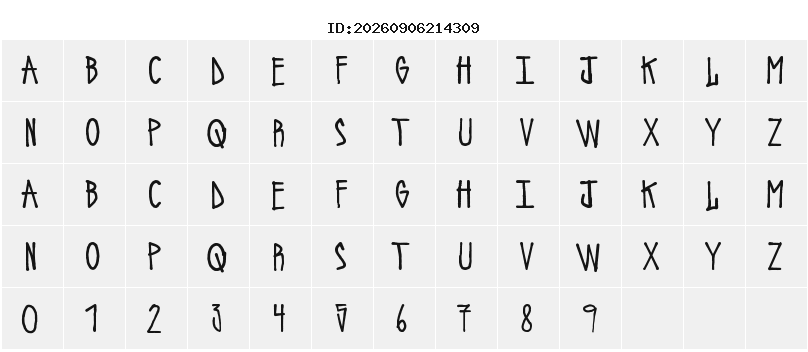
• Font Name: Urban Riot
• Full Font Name: Urban Riot
• Designer: José "Beraka" Lobos
Urban Riot.ttf is a modern, elegant sans-serif font designed for ultimate readability and visual harmony. Perfect for branding, headlines, web design, and print materials.